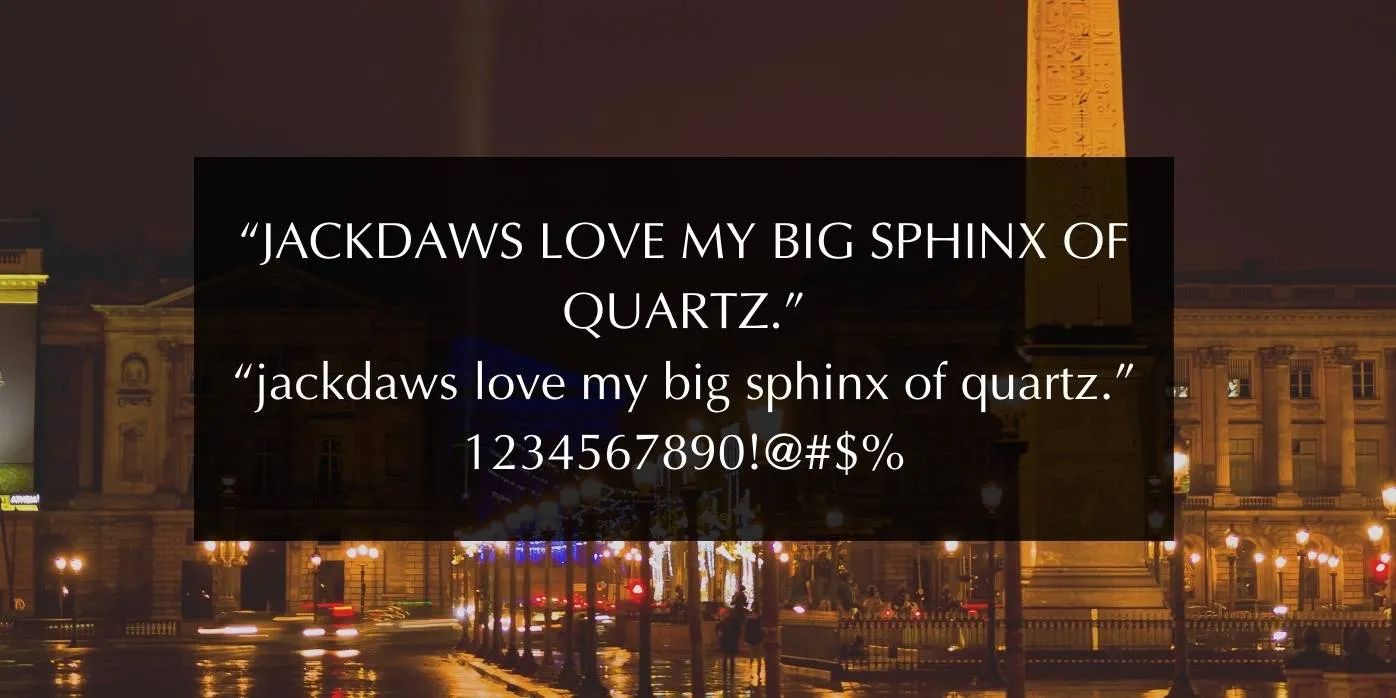
Optima Font
Here, we present a very stylish typeface known as Optima Font. This awesome typeface was developed by Hermann Zapf. It belongs to the sans serif typeface. Zapf designed this typeface in 1958.
You can also use this typeface with Adobe Fonts. This fashionable font has a humanist touch. And it gives an elegant look to your design. Optima Font is the best choice for headlines and short paragraphs of text.
It is also perfect for branding and advertising purposes. It is not included in the google font library. For more classic features, you will have to use its alternative mada font which has the same features. This staggering font comes with various features such as old-style figures, fractions, and superior letters.